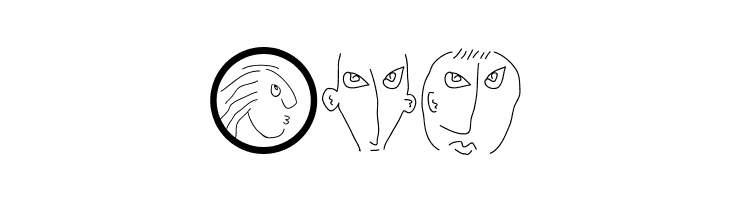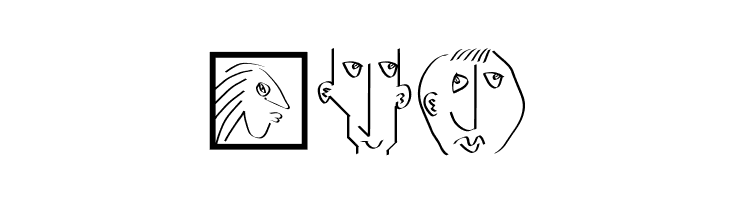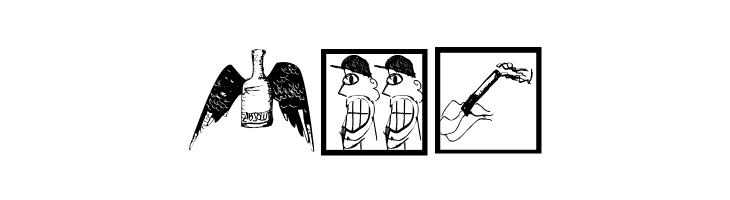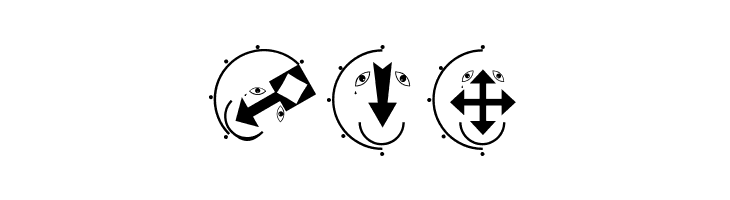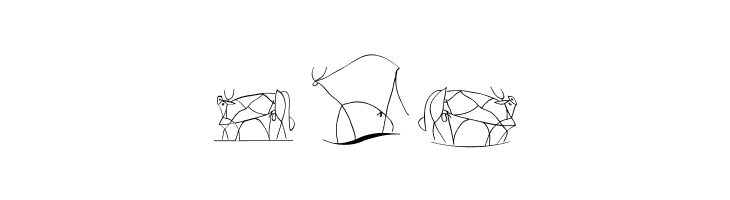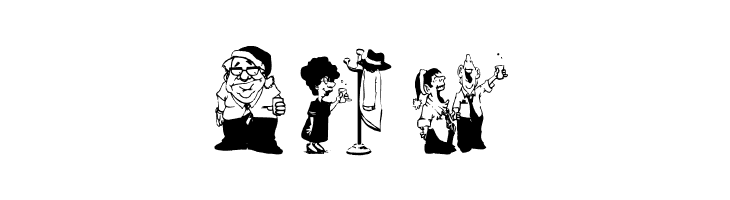
• QuickMary
A playful, handwritten font with a casual and dynamic style.
• OlderTypographicTraces
An abstract, decorative font with geometric and artistic elements.
• HeadsHandsSketches
Hand-drawn, abstract face sketches used as letterforms.
• HeadsCallSketches
Hand-drawn, abstract font made of expressive face sketches.
• CuxhavenInitialsRound
A bold, decorative blackletter font with circular borders and high contrast strokes.
• ShakeySlabserif
A slab serif font with a handcrafted, slightly irregular style.
• Olisillus
A whimsical, cartoon-like font with unique illustrative characters.
• Decreations
A decorative and abstract font with geometric and artistic elements.
• TaurusCowboys
Abstract, hand-drawn cattle illustrations form each character.
• XmasGsuffa
A playful, cartoon-style font with festive characters in humorous scenarios.